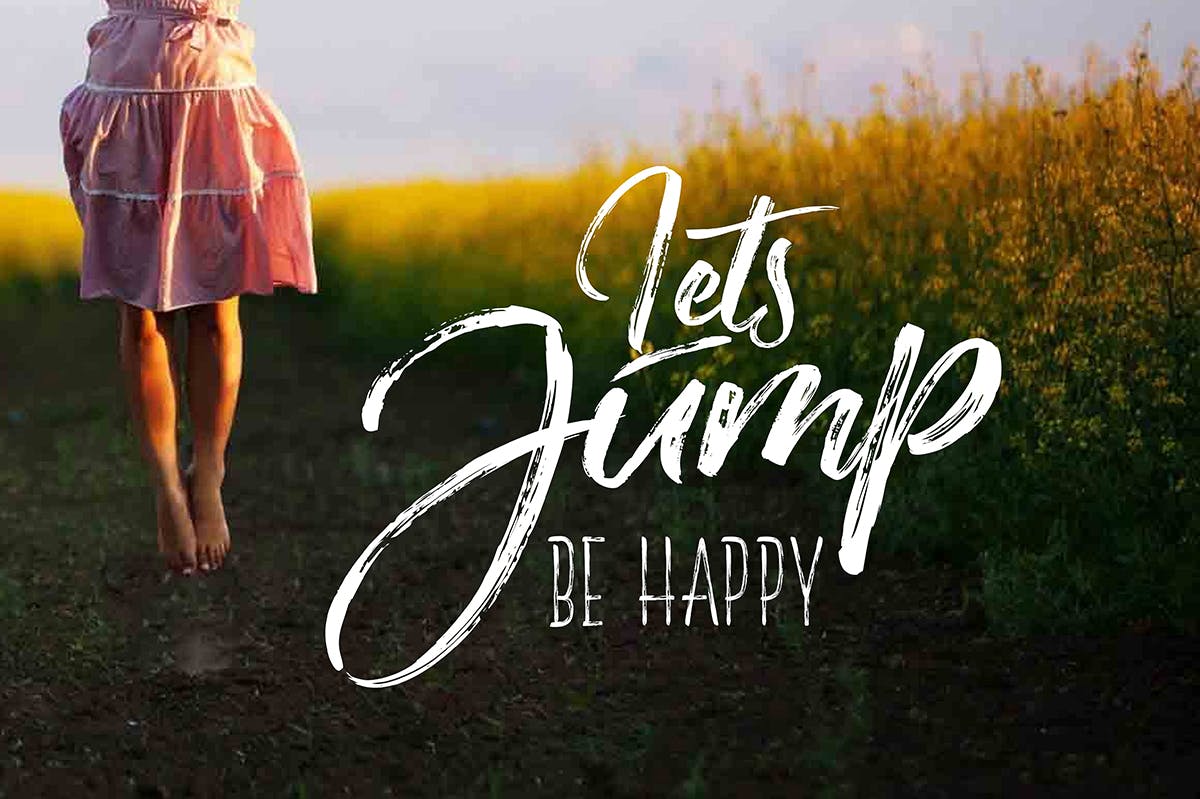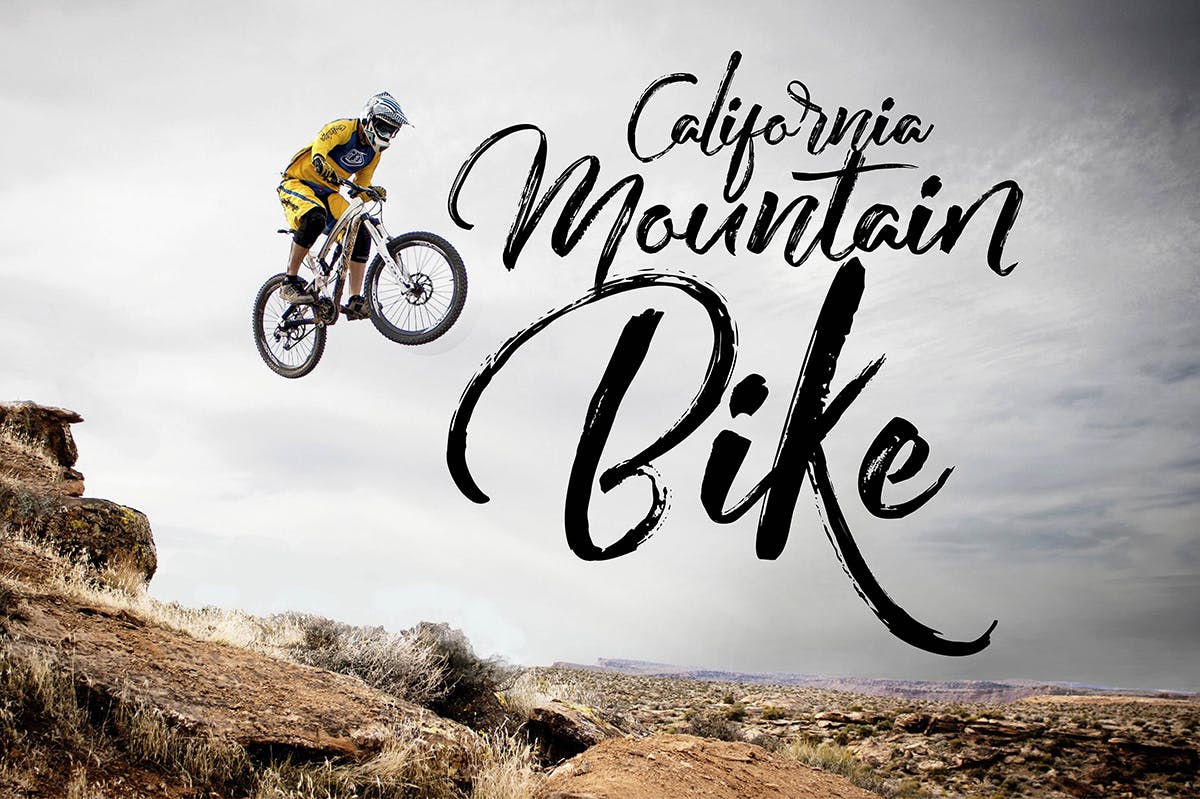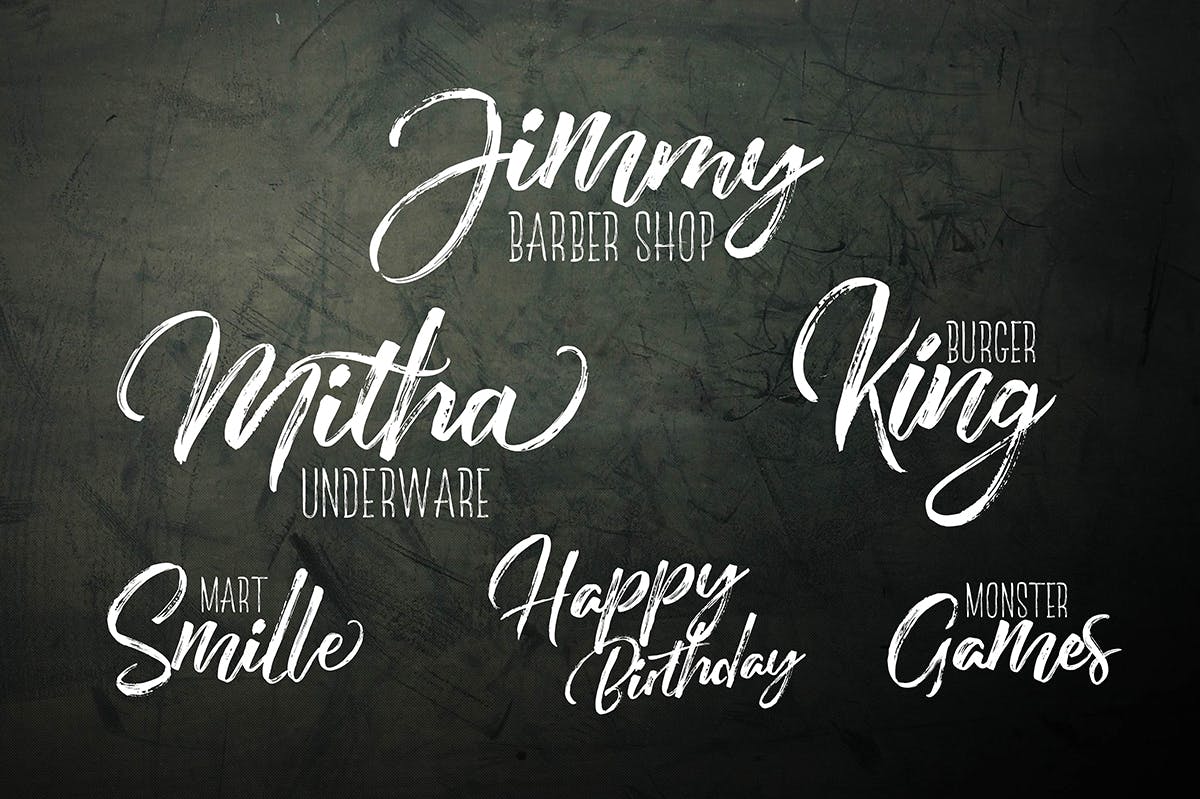
Redlight Script Free Demo
The Redlight Script Free Demo Script is a beautiful typeface coming from Rabittype. This one is created out of a natural hand-lettering brush that makes it even more authentic and unique. Therefore, this script font is suitable for wedding invitation, greeting cards, T-Shirt, Logo or any design that you create. So, download now and start creating your own gorgeous design!